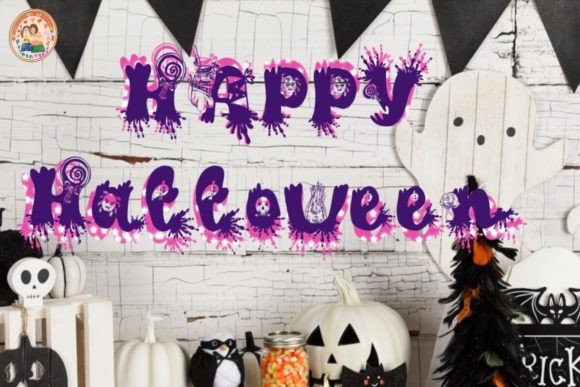
The Spooky Charm of Ghost Fonts: A Designer’s Delight
As a designer, I’ve had my fair share of late nights, scrambling to find the perfect font for a project. But one Halloween evening, I stumbled upon a font that made my heart skip a beat – Ghost Halloween. This cute and fun font has been a game-changer for my October projects, and I’m excited to share my experience with you.
My First Impressions: A Love Affair with Ghost Halloween
I was working on a Halloween-themed invitation for a client, and I needed a font that would capture the essence of the spooky season. That’s when I discovered Ghost Halloween. I was immediately drawn to its playful, whimsical vibe. The font’s unique blend of rounded edges and eerie undertones made it perfect for my project.
An Honest Review: The Good, the Bad, and the Quirky
- ✨ Unique and quirky design that’s perfect for Halloween-themed projects
- ✅ Easy to read, even in smaller font sizes
- 🎃 Versatile and can be used for a variety of design projects, from invitations to social media graphics
- 💻 Works well on both digital and print platforms
While Ghost Halloween is an amazing font, it’s not without its quirks. For instance, ⚠️ some letters may appear a bit distorted when used in all caps. However, this can be easily fixed by using the font’s built-in alternates or adjusting the tracking.
🤔 Another thing to note is that the font may not work well for very formal or traditional designs. But if you’re looking for a font that will add a touch of whimsy to your project, Ghost Halloween is an excellent choice.
The Designer’s Inspiration: A Backstory
Ghost Halloween was created by a talented designer who’s passionate about typography. Inspired by the spooky season, the designer aimed to create a font that would capture the essence of Halloween. With its unique blend of rounded edges and eerie undertones, Ghost Halloween is a true masterpiece.
Q: What type of projects is Ghost Halloween best suited for?
A: Ghost Halloween is perfect for Halloween-themed projects, such as invitations, social media graphics, and party decorations.